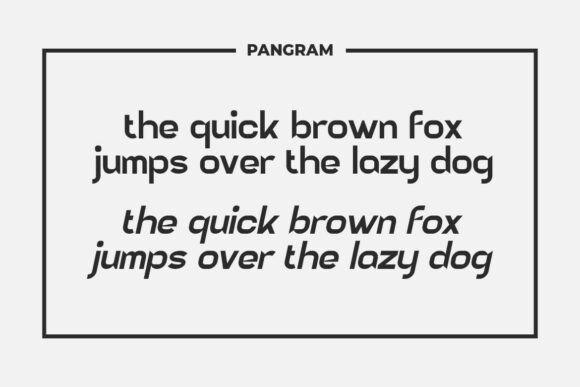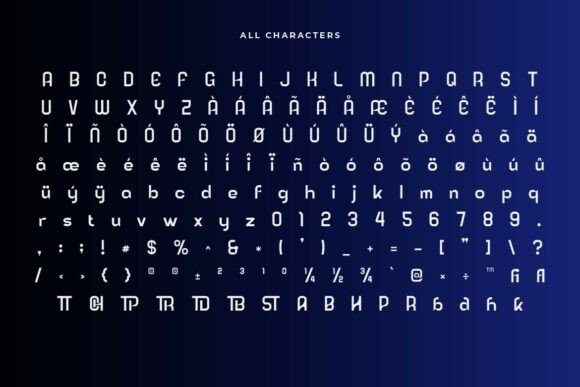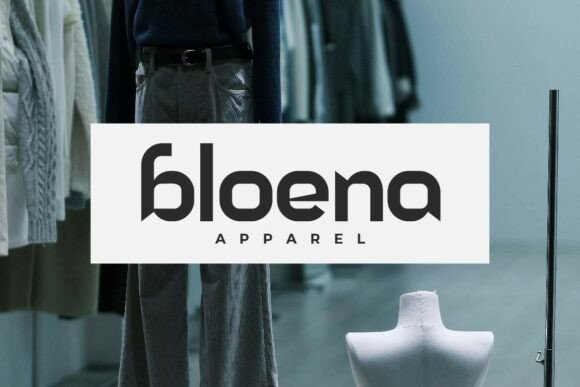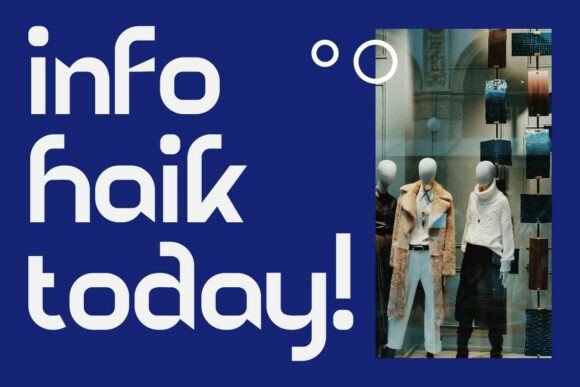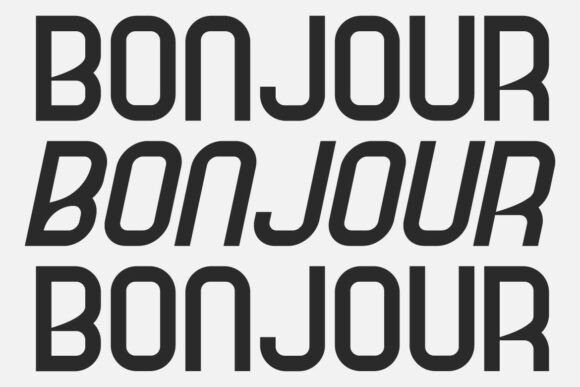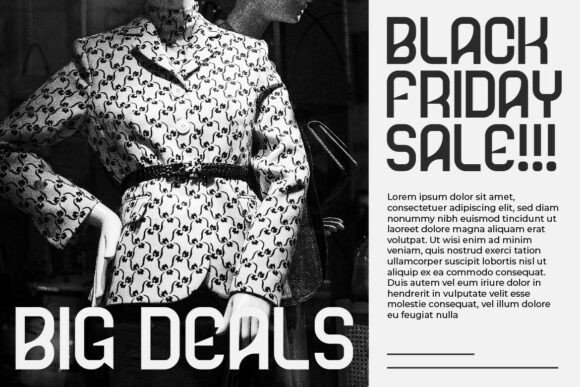
The Perfect Font to Make Your Mark: Biggo Font
You know that moment when you need to convey a message that leaves a lasting impression? The one where you want your audience to take notice and remember your brand or idea? That’s where the right font comes in. As designers, we’ve all been there – scrolling through font libraries, trying to find the perfect combination of style and impact. And then, we stumbled upon Biggo Font – a powerful sans serif font that’s designed to make a statement.
| 👤 Author | Artiveko |
Biggo Font is more than just a font; it’s a tool for designers to create bold, eye-catching visuals. With its clean lines, geometric feel, and bold proportions, Biggo Font is perfect for headlines, branding, posters, and editorial layouts. Whether you’re working on a logo design, marketing campaign, or editorial project, Biggo Font is an invaluable asset in your toolkit.
- Font Family: Biggo Font comes in 4 font styles: Light, Regular, Medium, and Bold.
- Unique Characteristic: Biggo Font features a unique blend of modern and vintage elements, making it suitable for a wide range of designs.
Biggo Font Review
Biggo Font is a modern sans-serif font that caught my attention with its clean lines and friendly feel. Here’s what I think about it:
- Legibility: Biggo Font is incredibly easy to read, even at smaller font sizes.
- Neutral aesthetic: Its clean design makes it suitable for a wide range of applications, from corporate materials to digital interfaces.
- Character count: Biggo Font offers a decent number of characters, including various languages and special characters.
- Limited expressiveness: Biggo Font’s neutral design may make it less suitable for projects that require a bold or creative visual statement.
- No bold or italic weights: While Biggo Font offers a regular weight, it lacks bold and italic versions, which might limit its versatility.
Overall, I think Biggo Font is a solid choice for projects that require a clean and approachable design. While it may not be the most exciting font out there, it gets the job done and is easy to work with. If you’re looking for a neutral sans-serif font with good legibility, Biggo Font is definitely worth considering.
The Biggo font is a bold, playful sans-serif font that is perfect for adding a fun touch to your designs. To use the Biggo font in your chosen design platform, follow these steps:
Tips for Getting the Most Out of Biggo Font
Use Biggo font to add a fun touch to headings, titles, and call-to-actions. Experiment with different font sizes and colors to create visual interest.
Biggo font is perfect for:
- Social media graphics
- Event invitations
- Children’s products